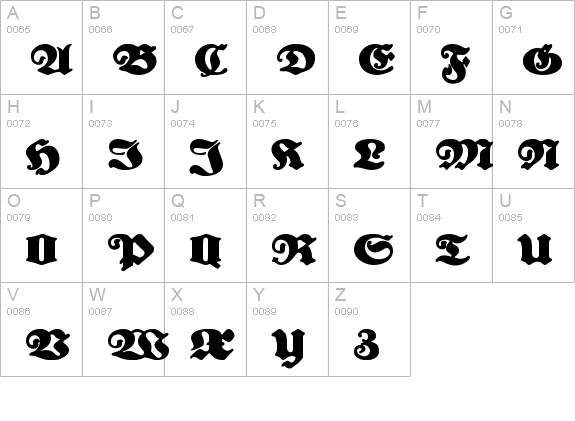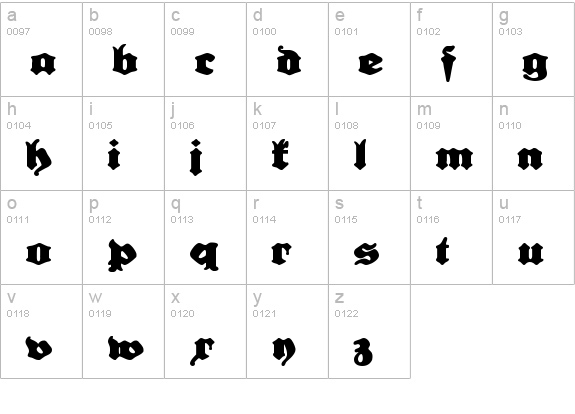
Urdeutsch Font Details
Introducing Urdeutsch, a beautifully crafted font that seamlessly combines traditional Germanic elements with a modern twist. This versatile typeface is perfect for adding a touch of elegance and sophistication to any design project, whether it be a logo, branding materials, invitations, or even website headers. Urdeutsch is the epitome of versatility, offering a wide range of weights and styles that allow you to experiment with different typographic expressions. Its clean and legible design ensures readability across various mediums, making it suitable for both print and digital applications. What sets Urdeutsch apart is not only its exquisite design, but also its accessibility. This font is freely available to download at FontsMarket.com, ensuring that designers of all skill levels can enjoy its benefits without breaking the bank. The creators of Urdeutsch understand the importance of providing quality resources at an affordable price, and they have made it their mission to make this font accessible to all. With its timeless appeal and effortless charm, Urdeutsch is bound to become a go-to choice for designers seeking a font that effortlessly captures the essence of Germanic culture while adding a contemporary touch. Download Urdeutsch today and unleash your creativity with this exquisite typeface that seamlessly blends tradition and modernity.